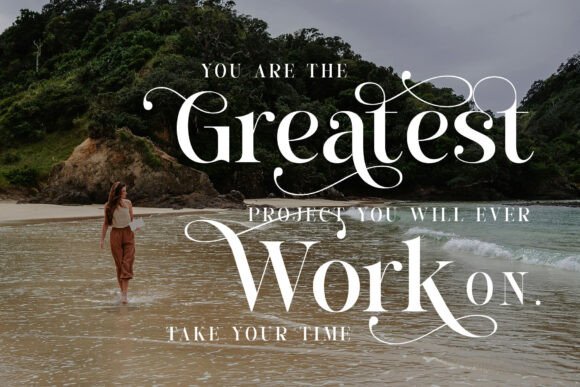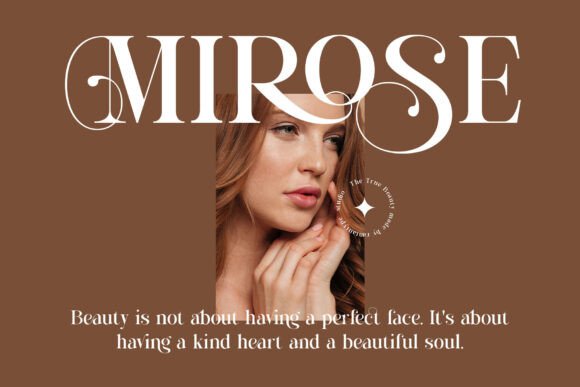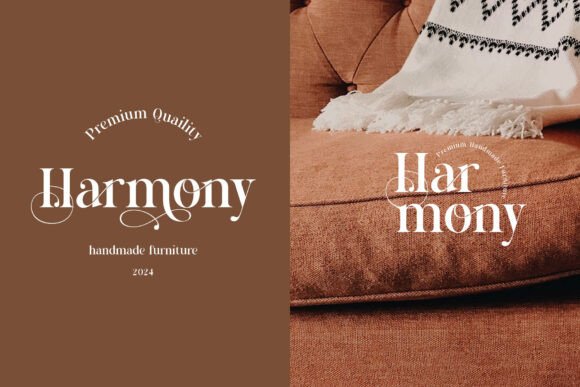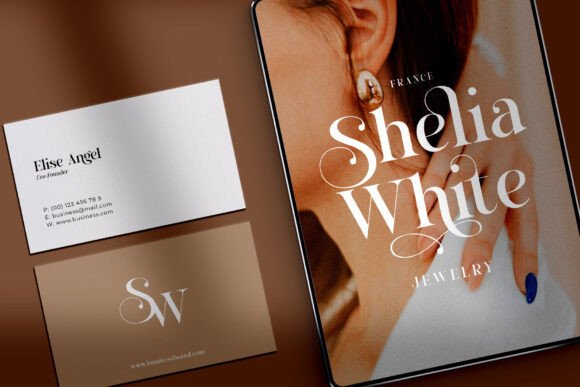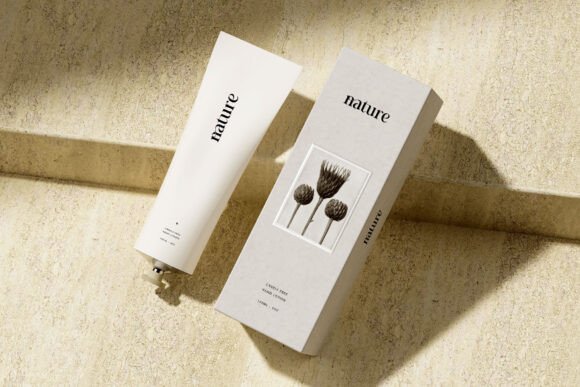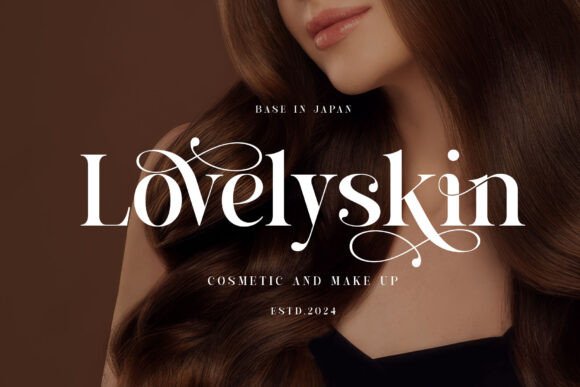
Belingar Font: Elevate Your Designs with Elegance and Boldness
Are you looking for a font that exudes elegance, sophistication, and boldness? Look no further than Belingar Font! This stunning serif font is perfect for designers and crafters who want to add a touch of luxury to their creations. In this article, we’ll dive into the world of Belingar Font, exploring its features, uses, and benefits.
What is Belingar Font?
Belingar Font is an elegant and bold serif font that is incredibly versatile. Its unique style makes it perfect for a wide range of design projects, from wedding invitations and stationery to social media posts and more. Whether you’re a professional designer or a crafty DIY enthusiast, Belingar Font is sure to impress.
Features of Belingar Font
So, what makes Belingar Font so special? Here are just a few of its key features:
• Elegant and Bold: Belingar Font combines elegance and boldness in a way that’s hard to find in other fonts. Its serif details add a touch of sophistication, while its bold lines make it stand out.
• Versatile: Belingar Font is incredibly versatile, making it perfect for a wide range of design projects. Use it for wedding invitations, stationery, social media posts, and more.
• Easy to Read: Despite its bold lines, Belingar Font is easy to read, even in smaller sizes. This makes it perfect for body text, headings, and titles.
Uses for Belingar Font
So, what can you use Belingar Font for? The possibilities are endless! Here are a few ideas to get you started:
• Wedding Invitations: Create stunning wedding invitations that set the tone for the big day. Belingar Font’s elegant and bold style is perfect for wedding stationery.
• Stationery: Add a touch of luxury to your stationery with Belingar Font. Use it for business cards, letterheads, and more.
• Social Media Posts: Make your social media posts stand out with Belingar Font. Use it to create eye-catching graphics, quotes, and more.
• Signage: Use Belingar Font for signage, including store signs, event signs, and more.
Benefits of Using Belingar Font
So, why should you choose Belingar Font for your next design project? Here are just a few benefits:
• Unique Style: Belingar Font has a unique style that sets it apart from other fonts. Its elegant and bold lines make it perfect for designers who want to create something special.
• Time-Saving: With Belingar Font, you can create stunning designs in no time. Its easy-to-read lines and versatile style make it perfect for a wide range of projects.
• Professional Look: Belingar Font gives your designs a professional look that’s sure to impress. Whether you’re designing for a client or creating something for personal use, Belingar Font is the perfect choice.
Tips for Using Belingar Font
Here are a few tips for using Belingar Font in your designs:
• Experiment with Sizes: Belingar Font looks great in a variety of sizes. Experiment with different sizes to find the one that works best for your design.
• Pair with Other Fonts: Belingar Font pairs well with other fonts. Try pairing it with a sans-serif font for a bold and elegant look.
• Use it for Headings: Belingar Font is perfect for headings and titles. Use it to create eye-catching graphics and add a touch of elegance to your designs.
In conclusion, Belingar Font is a stunning serif font that’s perfect for designers and crafters who want to add a touch of elegance and boldness to their creations. Its versatile style, easy-to-read lines, and unique features make it perfect for a wide range of design projects. Whether you’re creating wedding invitations, stationery, social media posts, or more, Belingar Font is the perfect choice. So why wait? Fall in love with Belingar Font and elevate your designs to the next level!